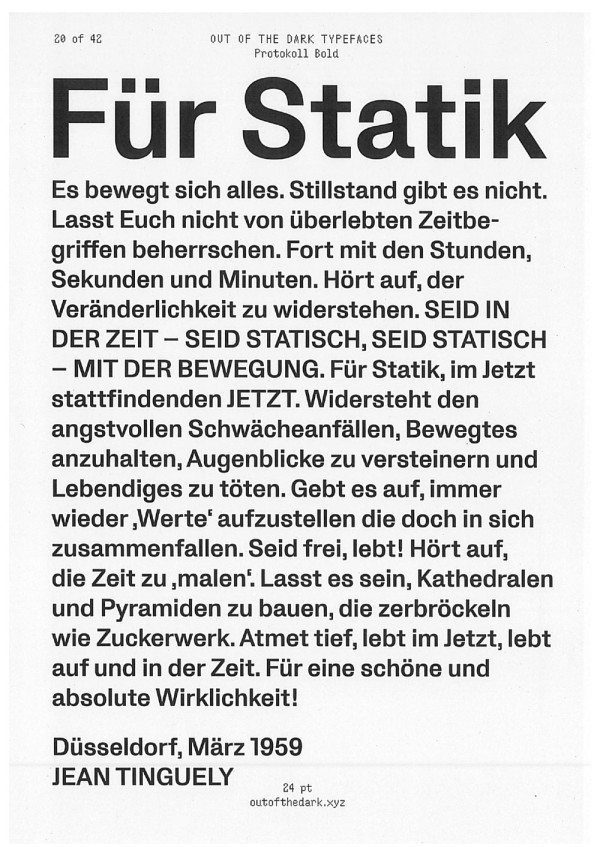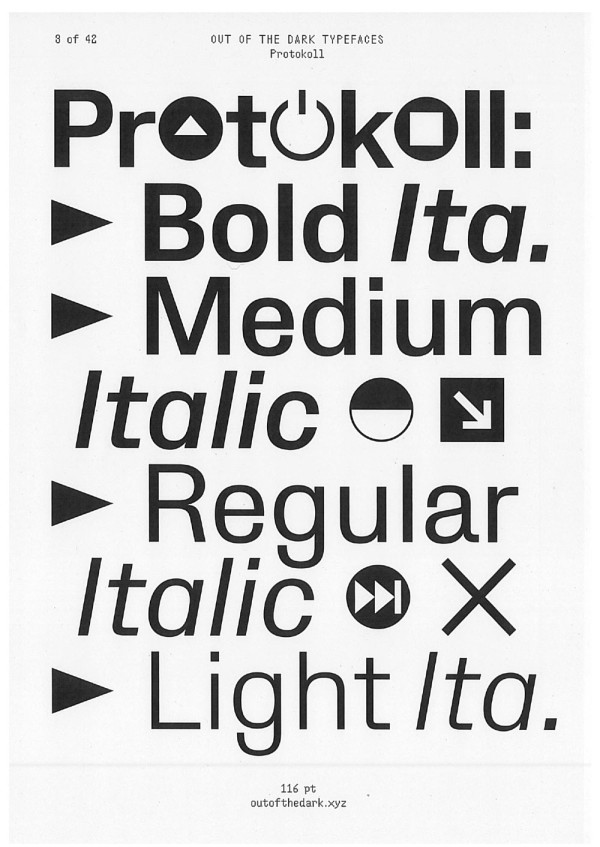
Protokoll Font Family
Protokoll Font Family, draws its inspiration from a couple of sturdy and technical typefaces such as Folio, Permanent and Record. Its design is based on a grid in order to preserve the mechanical spirit. The starting point was a comparison of metal type in Karl Gerstner’s book “Designing Programs”. It illustrates different sizes of a typeface called Berthold and how the design changes according to size.
Instead of following a humanist direction, Protokoll Font is entirely parametric, including the spacing and kerning. The name speaks for itself: with a glyphset of more than 900 characters, Protokoll Font provides plenty of options for charts, infographics and data.
Even though most of the letterforms are quite closed, it still works very well in smaller sizes. Compared to that, the italics are rather freely designed, with a different, almost calligraphic approach. Their letterforms also being squarish with closed endings, Protokoll Font Italic still perfectly pairs with the upright styles.